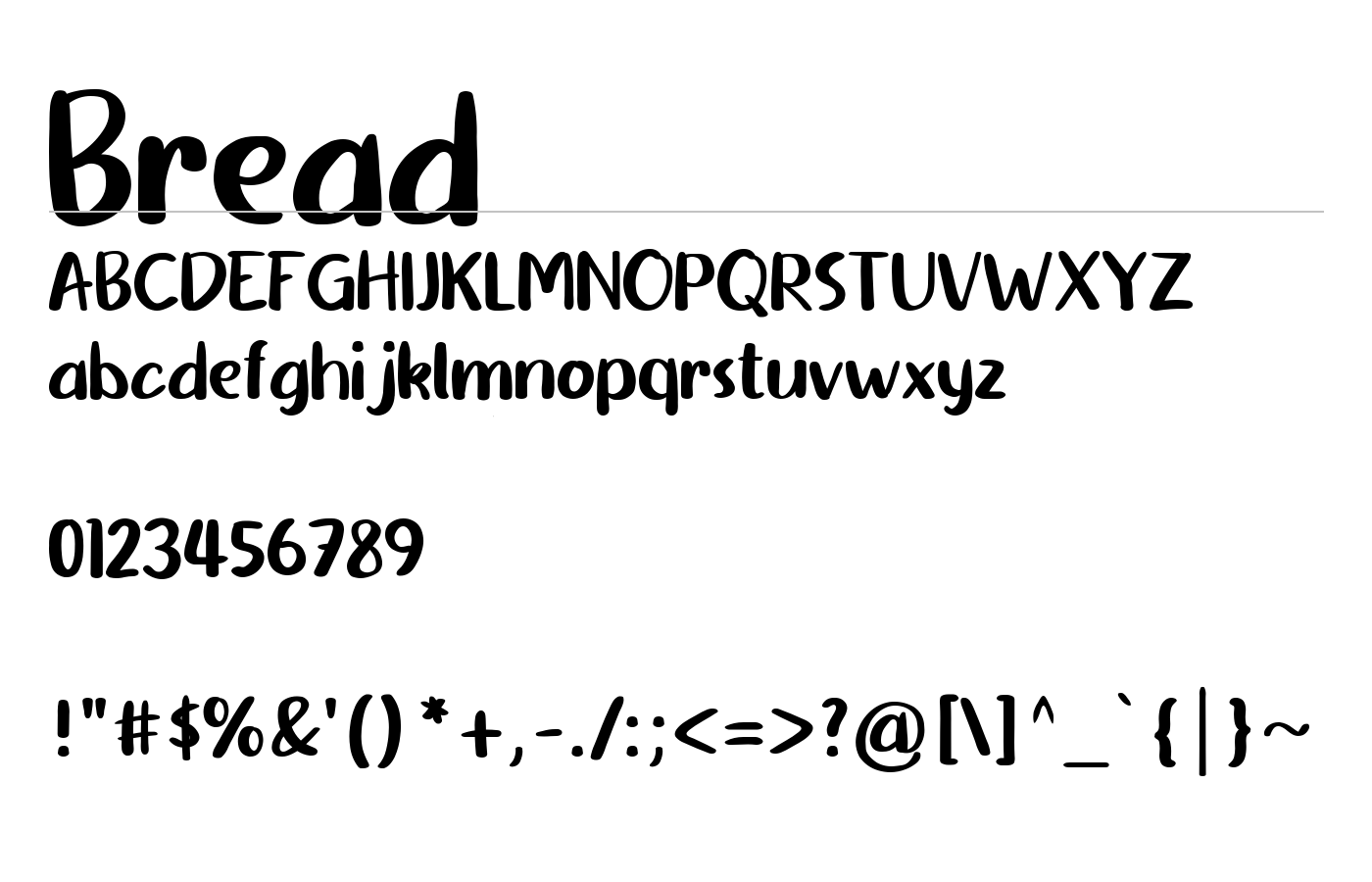
Bread Font is a playful, hand-drawn sans serif with a friendly and casual vibe, featuring rounded shapes and slightly uneven strokes that give it an inviting, organic feel. Its moderate weight and clean letterforms make it perfect for branding, packaging, and informal headlines where a warm, approachable tone is desired. This font works especially well for creative projects, children's materials, and lifestyle brands seeking a charming and relaxed style.
Bread Font
About Bread Font